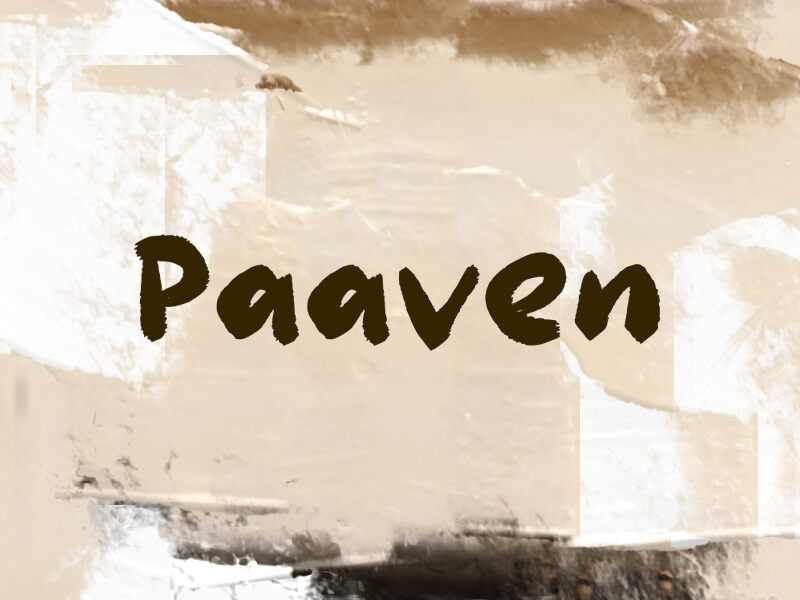
Paaven font designed by wep is a hand-brushed script font with a natural and balanced feel. Its subtle organic texture and informal appearance make it the perfect font for expressing the beauty of casual handwritten letterforms. Paaven, has raw expressions and humane imperfections. Its relaxed brush strokes carry a modern aesthetic that would effortlessly add a casual and artistic personality to your projects.
Paaven’s laid-back appearance and relaxed mood make it suitable for use in many artistic and cultural applications. You can use it for branding, photography, social media content, posters, apparel design, commercial and personal artistic projects, and more.
Paaven is a stunning free font designed to elevate your creative projects. With its unique style and versatility, this font is perfect for a wide range of applications, from branding to invitations. It combines elegance and readability, making it an excellent choice for any design needing a touch of sophistication.